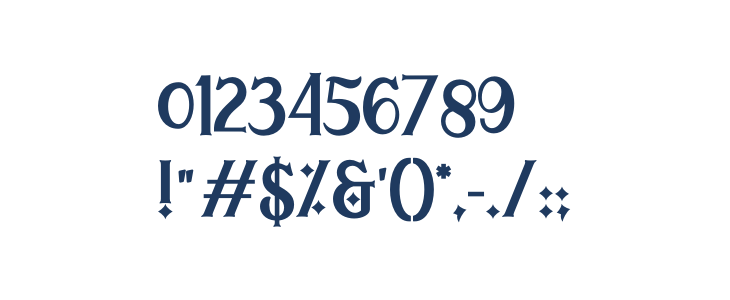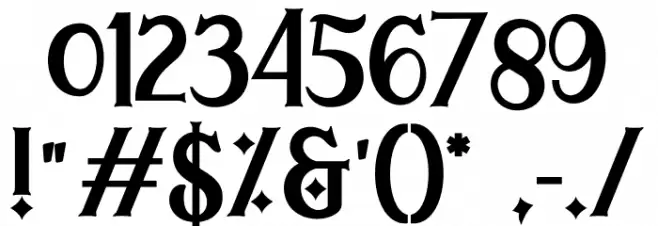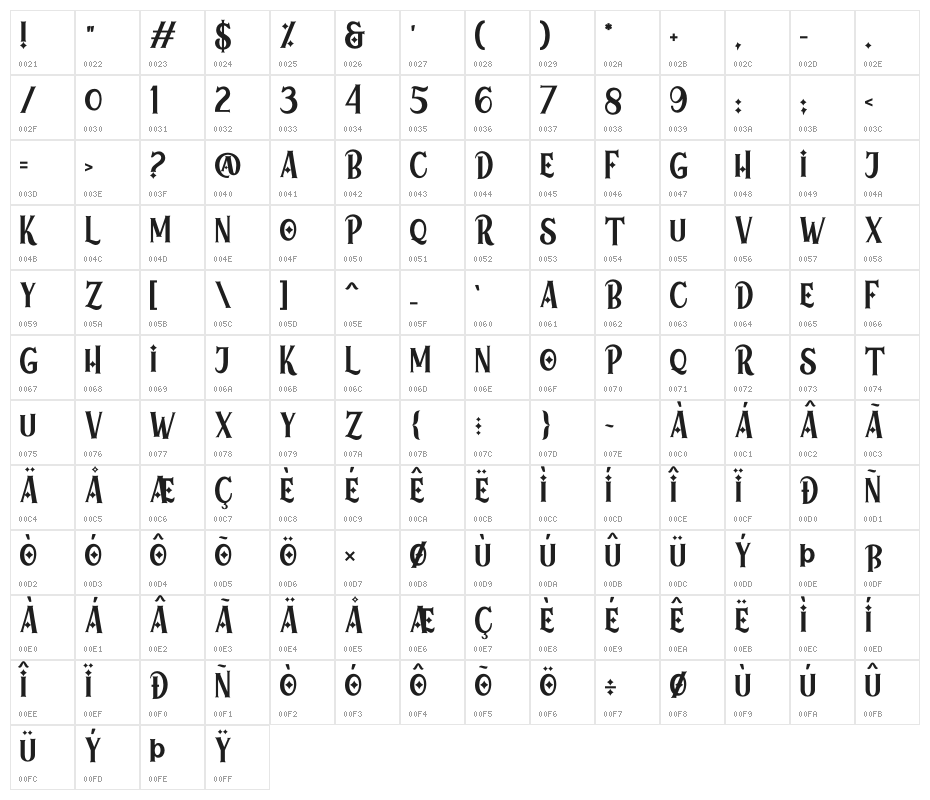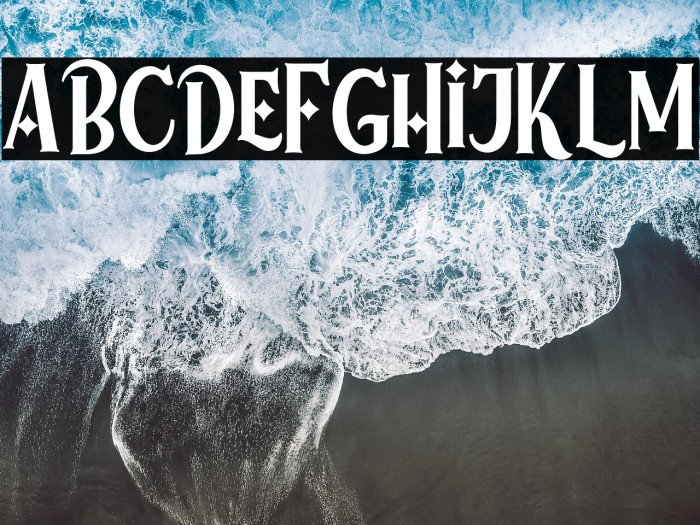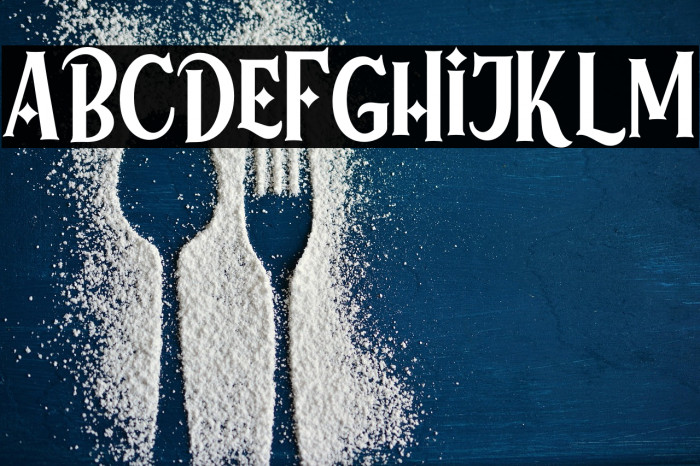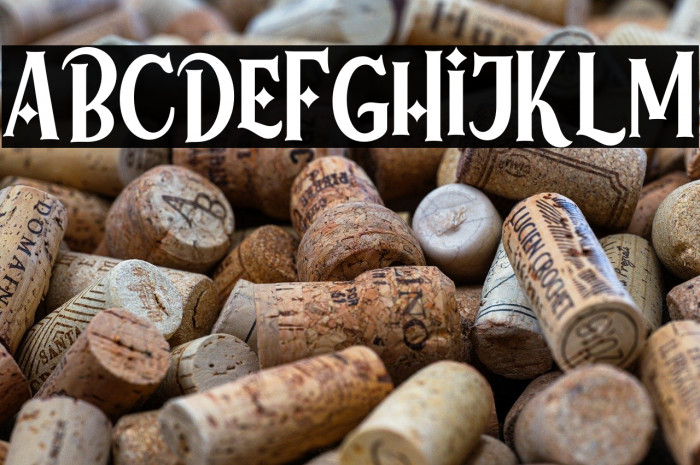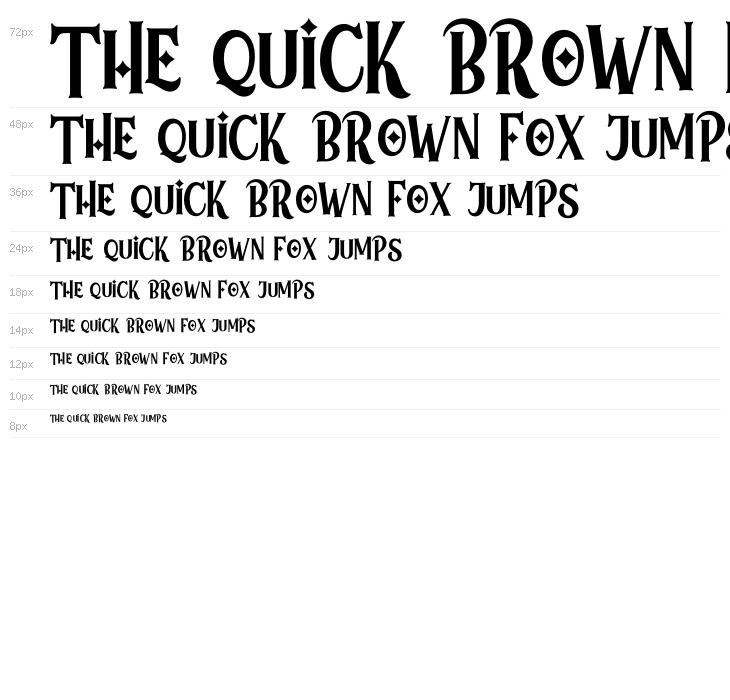
MEGLORIA Font
MEGLORIA Description
This font features a bold and decorative style with a distinct medieval or gothic influence. The characters are characterized by sharp, angular serifs and unique embellishments, such as diamond-shaped cutouts in the middle of certain letters. The uppercase letters are particularly striking, with a strong presence and a sense of grandeur. The numerals and special characters maintain the same ornate style, ensuring consistency across the typeface. This font is well-suited for projects that require a dramatic and eye-catching display, such as posters, book covers, or themed event invitations.
| Proposed Projects | Ideal for posters, book covers, themed event invitations, and any project needing a dramatic, eye-catching display. |